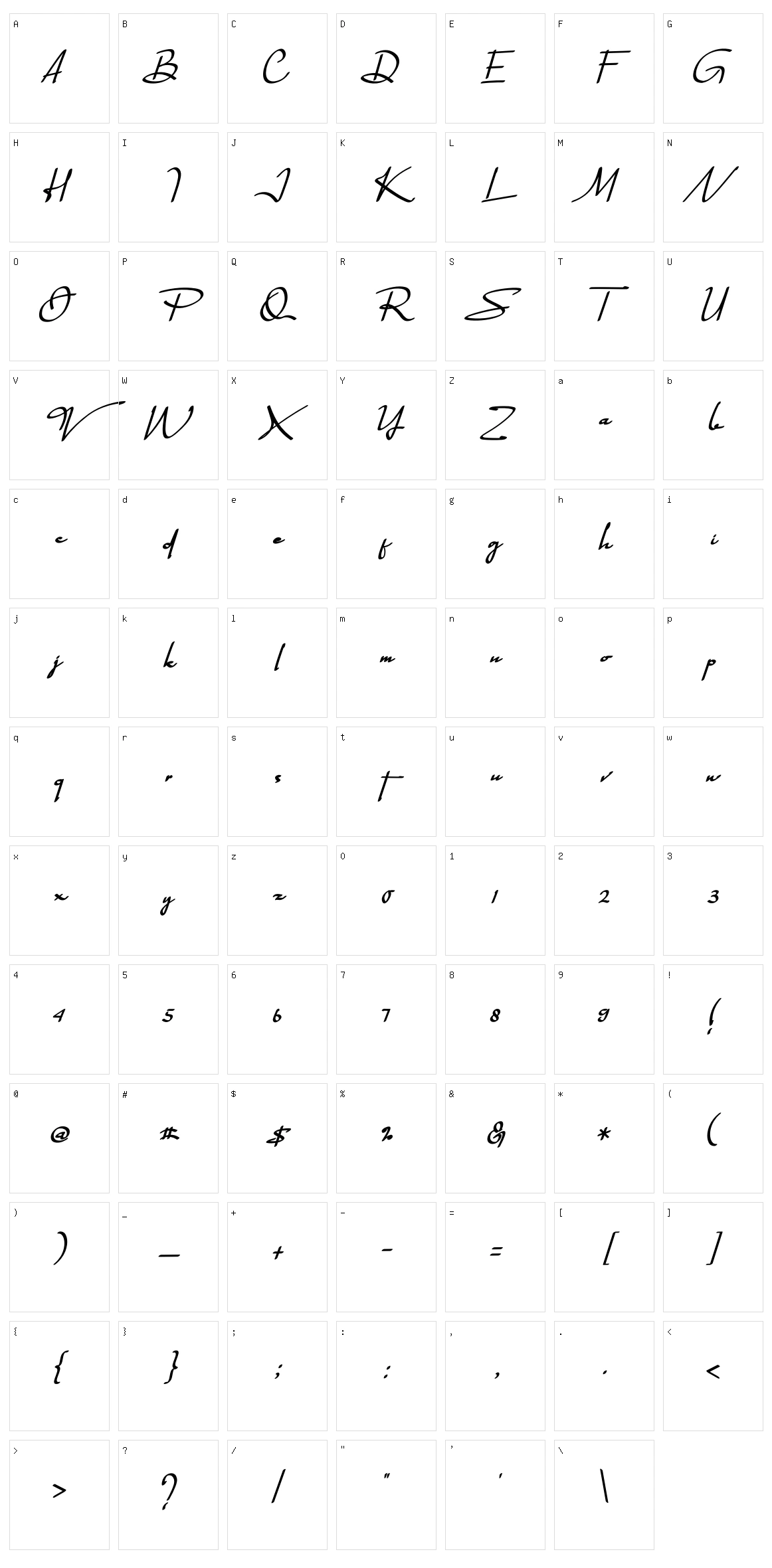
Quagralle is a modern, versatile font based on hand lettered.
the great choice for watermark on photography, signature or
signature logo design, quotes, album cover, business card, and
many other design project.